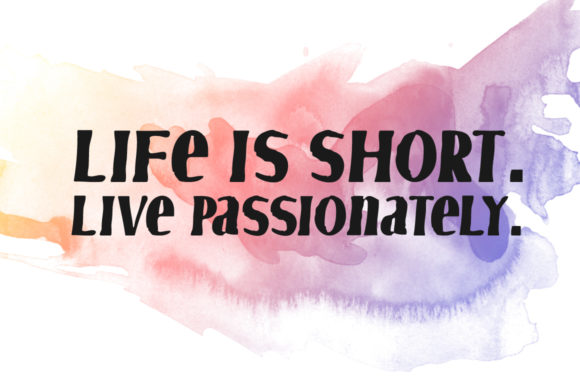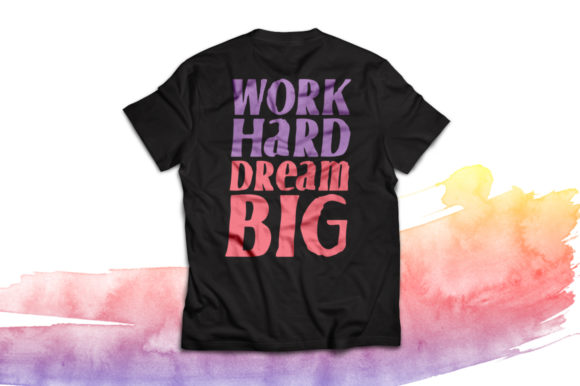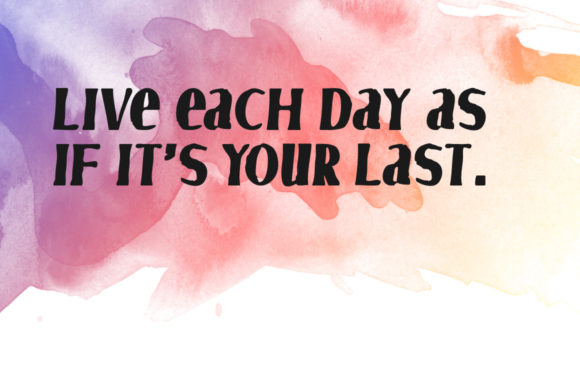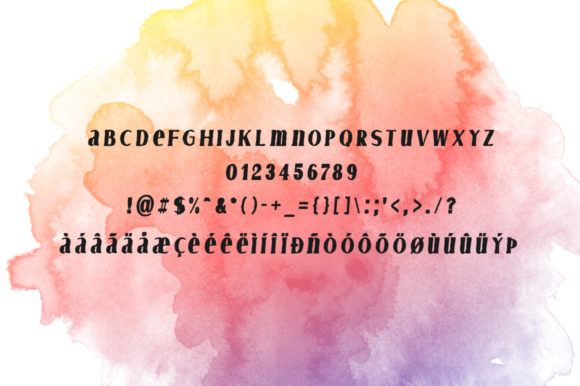
Introduction to Realizer Font
As designers, we’ve all been there – staring at a blank canvas, trying to bring our creative vision to life. The right font can make all the difference, elevating our designs from bland to grand. That’s exactly what the Realizer Font promises to do – take your designs to the next level with its high-quality, unique aesthetic.
With its versatility and wide range of applications, the Realizer Font is the perfect design resource for any creative project. Whether you’re working on a logo, flyer, or website header, this font is sure to impress. And the best part? It’s available for free download, making it an invaluable addition to any designer’s toolkit.
But what really sets the Realizer Font apart is its transparent background, allowing you to layer it seamlessly with other design elements. This level of customization is a game-changer for designers, giving you the creative freedom to push the boundaries of your imagination.
Key Features of Realizer Font
- High-quality design with a unique, modern style, perfect for creative projects.
- Features a transparent background, allowing for seamless integration into any design or project.
- Includes a comprehensive character set, including Latin, Cyrillic, and Greek alphabets, as well as punctuation and symbols.
- Designed to be highly legible, with clear lines and a well-balanced structure, making it an ideal choice for body text and headings.
Honest Review: Realizer Font
As a designer, I’m always on the lookout for high-quality fonts that can elevate my creative projects. The Realizer Font is a great addition to any design resource library, offering a unique and stylish aesthetic.
- ✨ The Realizer Font has a beautiful, modern design that’s perfect for creative projects.
- ✨ The font is highly versatile, suitable for a wide range of design applications.
- ✨ The transparent background option allows for seamless integration with other design elements.
- ⚠️ The Realizer Font may not be suitable for formal or traditional design projects, as it has a somewhat modern and edgy feel.
- ⚠️ Some users may find the font’s style a bit too bold or overpowering.
Overall, I’m impressed with the Realizer Font and would recommend it to designers looking for a high-quality, free download font for their creative projects. With its unique design and versatility, it’s a valuable addition to any design resource library.
Realizer Font
Tips for Getting the Most Out of the Realizer Font
Use the Realizer Font with a transparent background to create a modern and sleek design. Experiment with different font sizes and styles to add visual interest to your project. The Realizer Font is a versatile design resource that can be used in a variety of creative projects.
The Realizer Font is commonly used in design projects that require a high-quality, modern font. It is particularly useful for creating logos, brochures, and other marketing materials. The font’s transparent background makes it ideal for use on images with complex backgrounds.